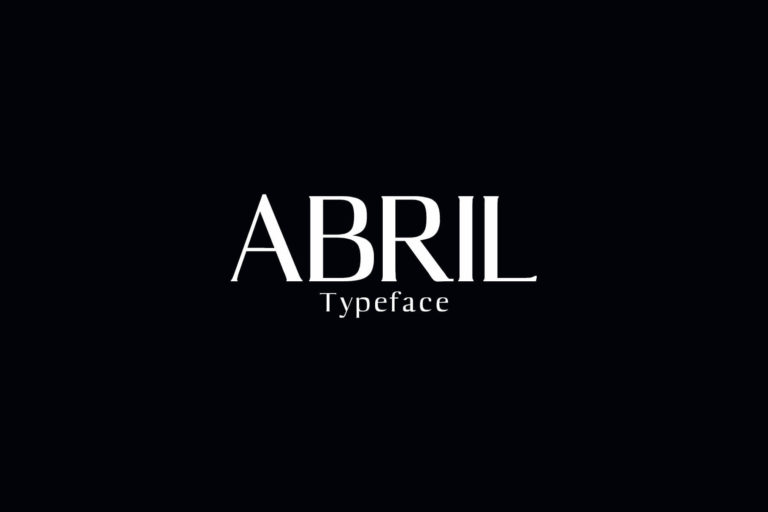
- Abril Serif Typeface
Abril Serif Font Pack is a unique and modern serif layout set of 7 weights typeface which is good for making creative displays. It suits best for clean designs, logos, headlines, banners and templates etc. It looks gorgeous in all caps with a wide-set spacing if you want to try a classy look, or beautiful on its own in capital and lowercase letters for something completely timeless.
Features:
- Regular, Light, Thin, Medium and Italics Weights
Abril Font Features:
- Uppercase Multilingual Letters
- Lowercase Multilingual Letters
- Non English Characters ( Latin Supplement + Latin Extended A)